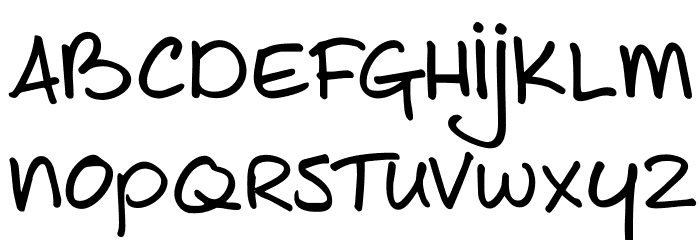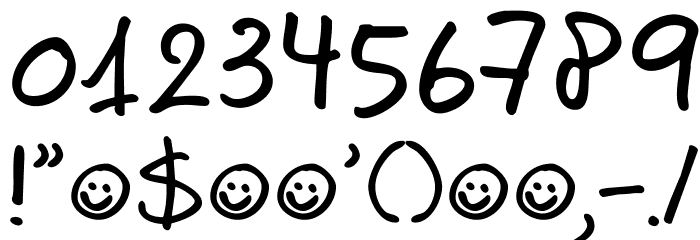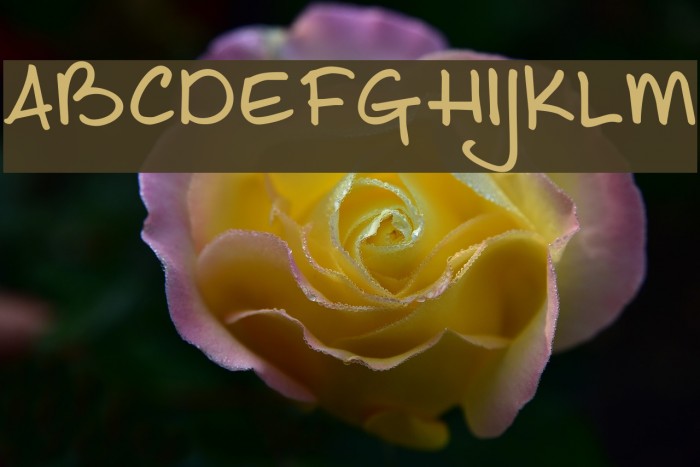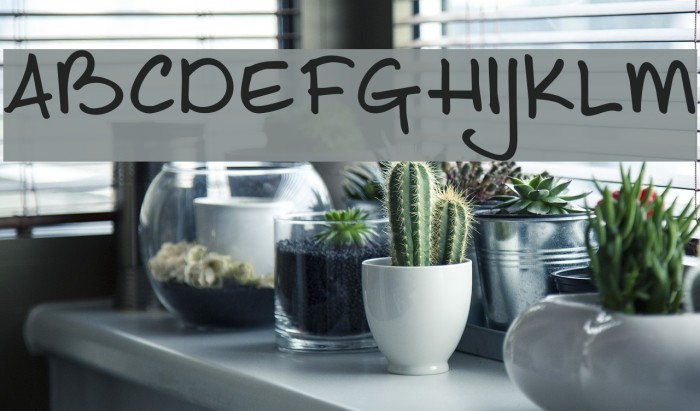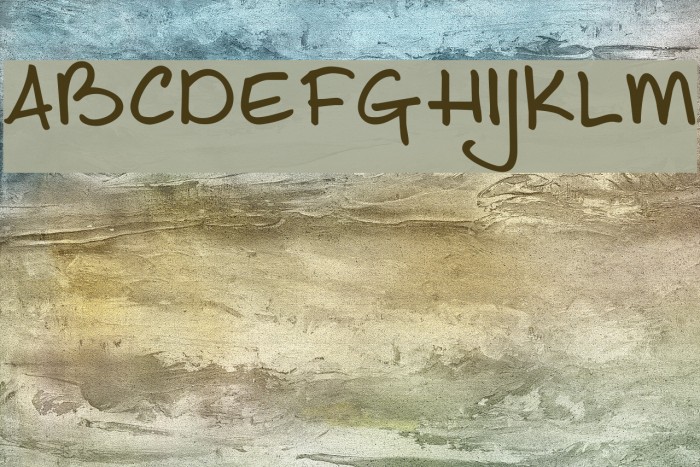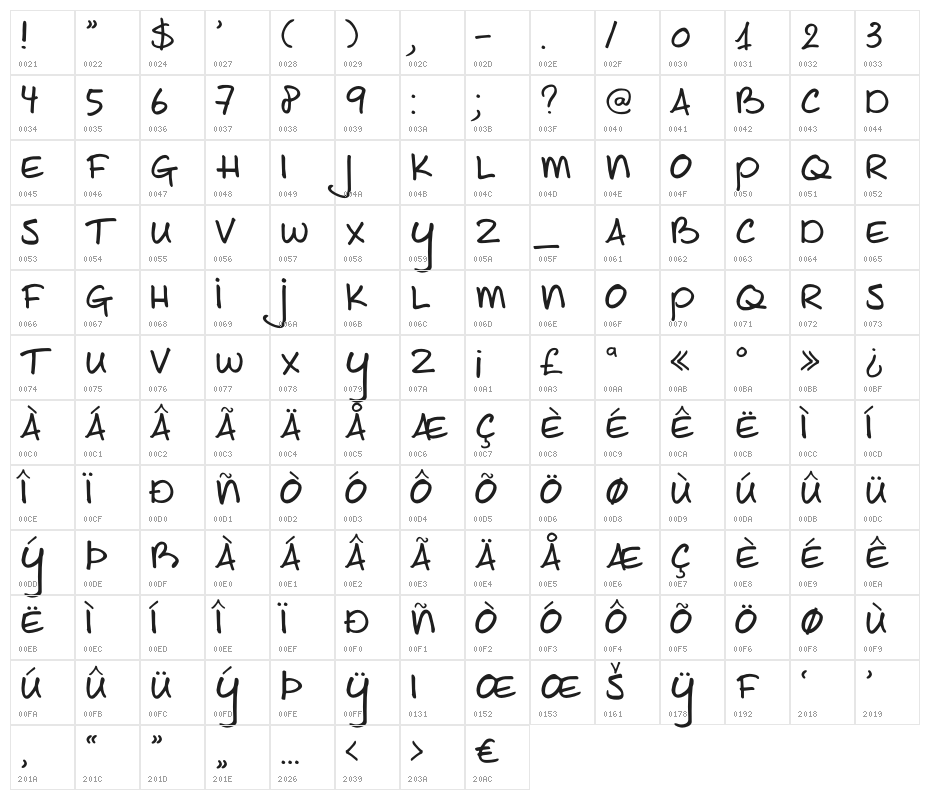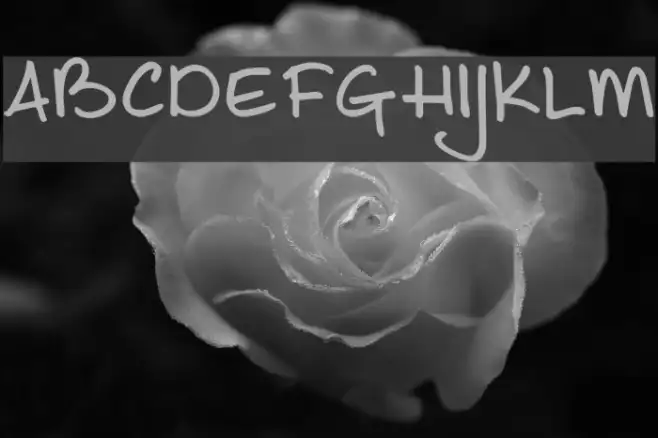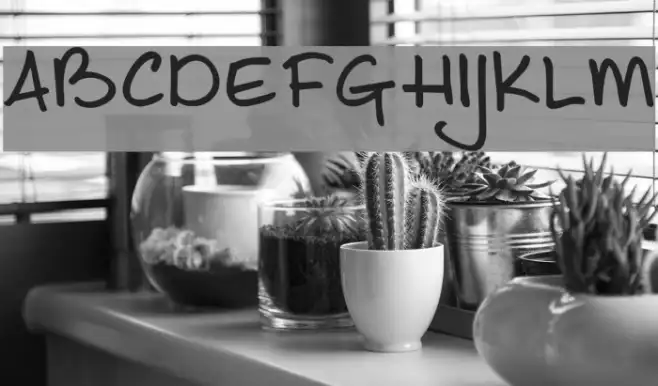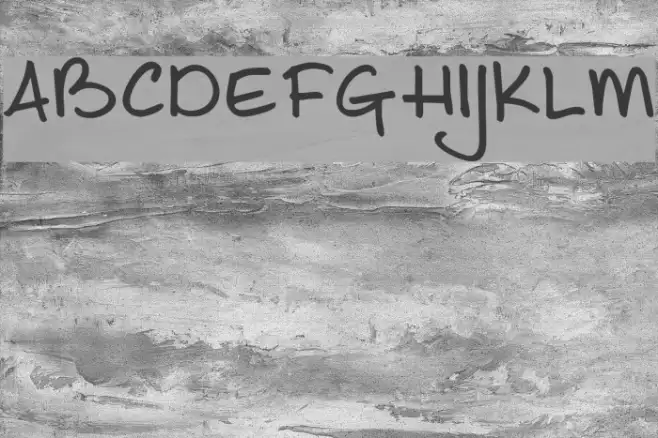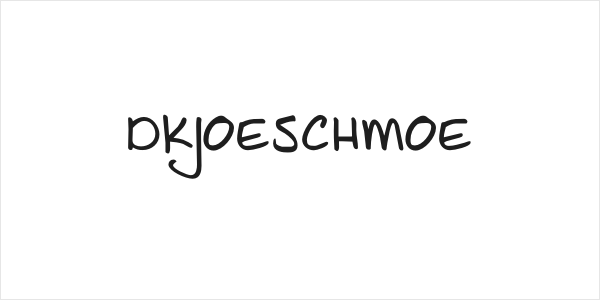
DKJoeSchmoe Font
This playful and energetic font features a handwritten style with a casual, informal appearance. The letters are slightly uneven, giving it a lively and dynamic feel. The uppercase and lowercase characters maintain a consistent flow, with rounded edges and a friendly demeanor. The numbers and special characters complement the alphabet with similar playful characteristics. This font is ideal for projects that require a personal touch or a fun, approachable vibe.
A playful, handwritten font with a lively and informal style.
- Proposed Projects: Ideal for children's books, greeting cards, playful branding, and casual invitations.
- Overall Style: Casual
- Use Case: Headlines, Logos, Informal text